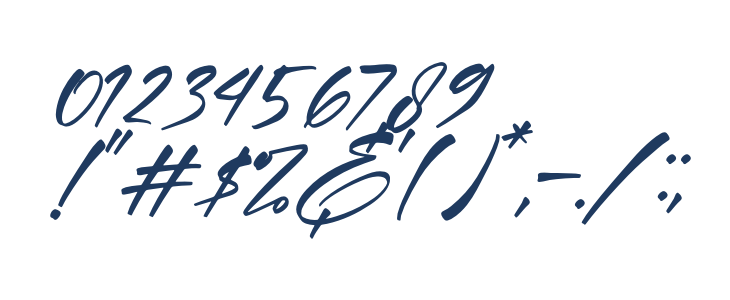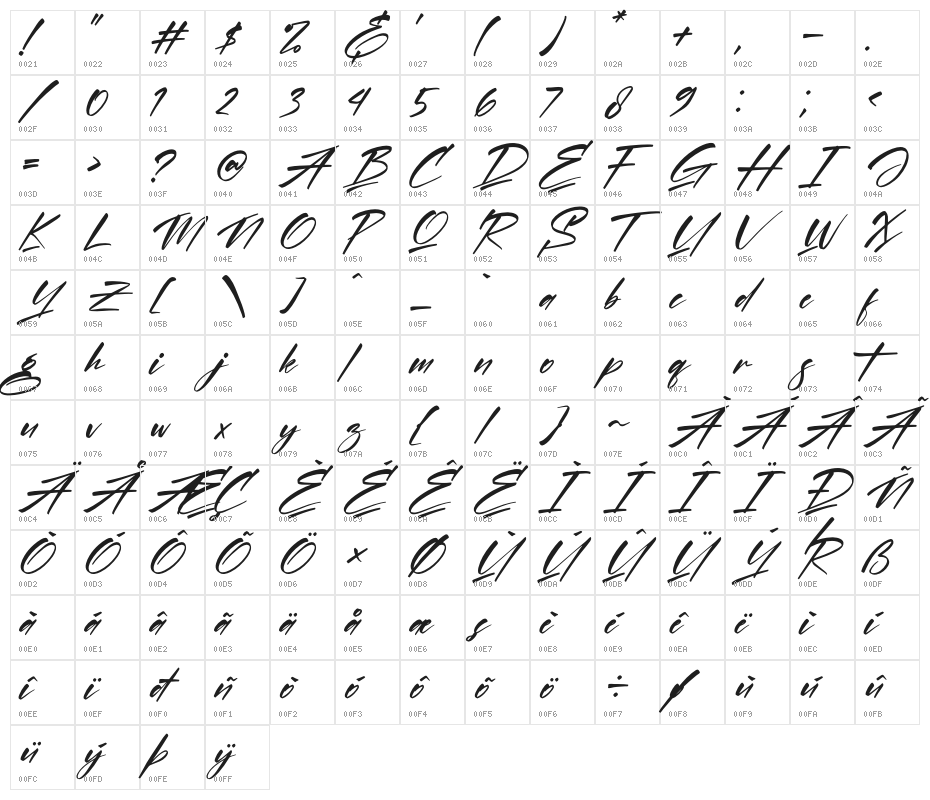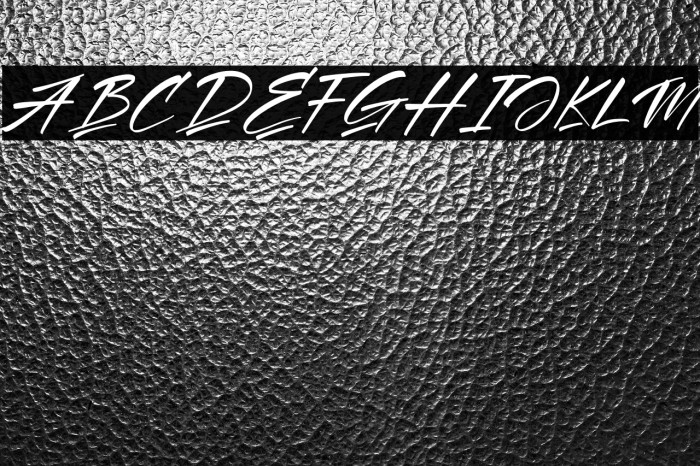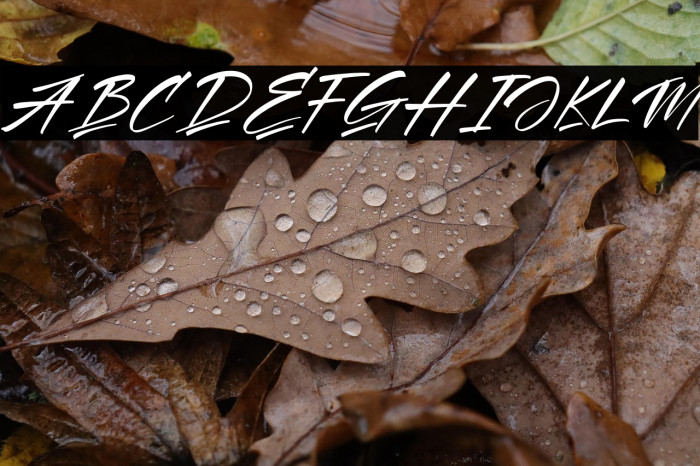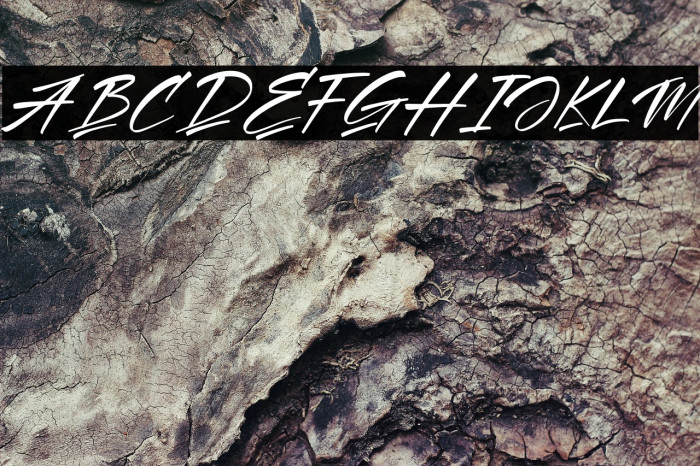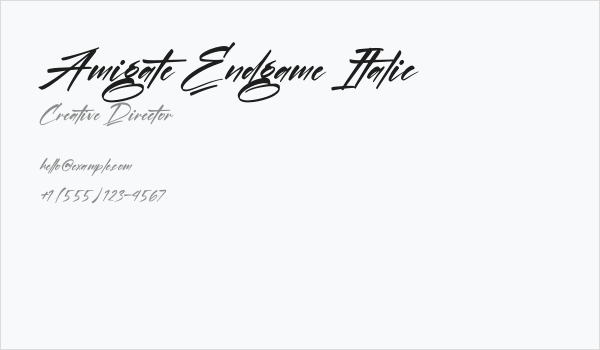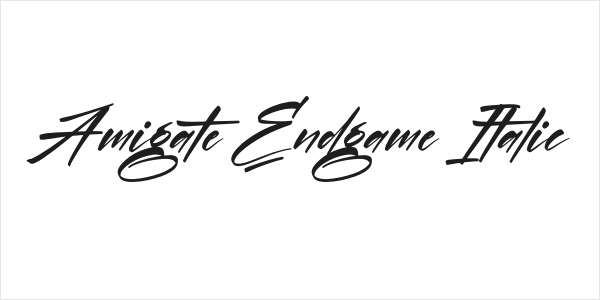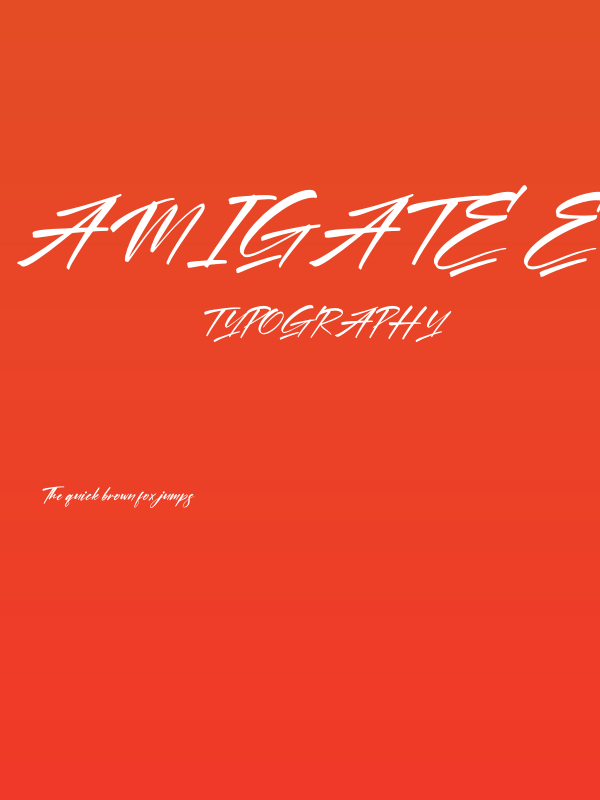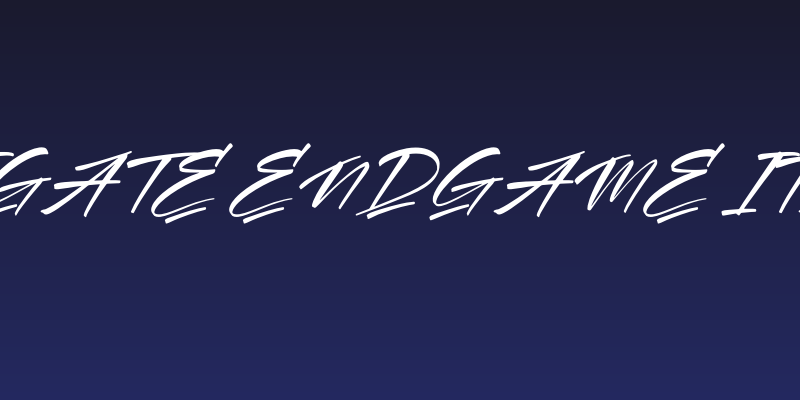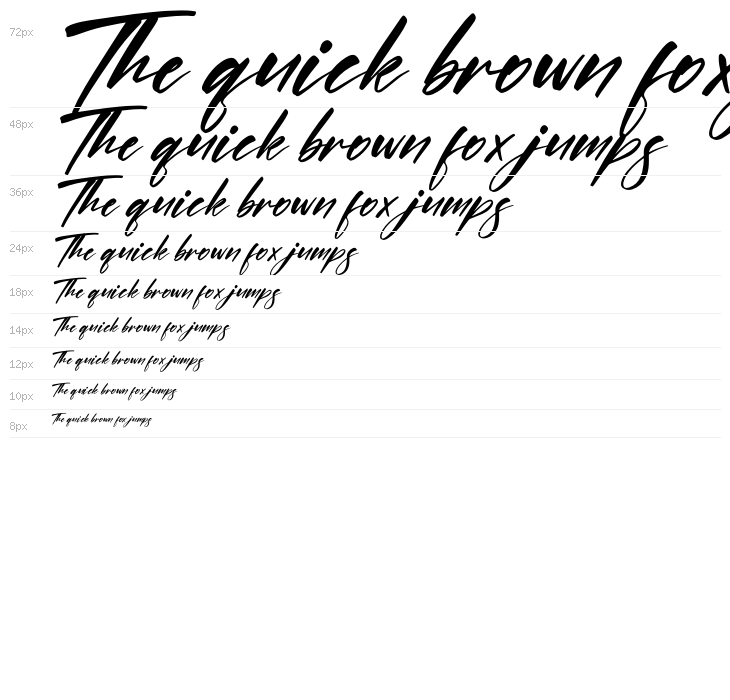
This font exudes a dynamic and energetic style, characterized by its italicized, handwritten appearance. The letters are fluid and connected, giving a sense of motion and spontaneity. The strokes are bold and expressive, with varying thickness that adds a lively contrast. The uppercase letters maintain a consistent height, while the lowercase letters are slightly more varied, enhancing the casual, informal feel. Numbers and special characters follow the same stylistic cues, ensuring a cohesive look across all text elements.
Proposed ProjectsIdeal for creative projects such as posters, branding, and social media graphics where a personal, energetic touch is desired.